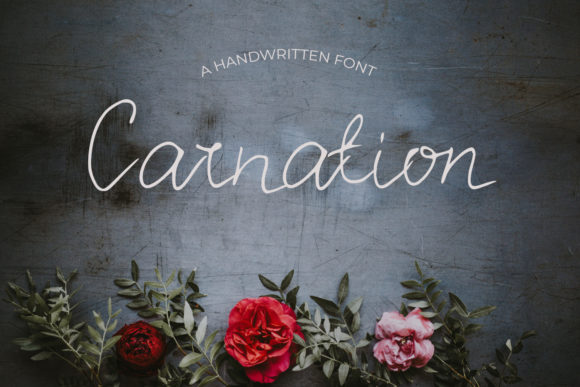
Carnation Font: A Delicate and Elegant Handwritten Font for Your Creative Projects
Are you a designer or crafter looking for a font that exudes elegance and sophistication? Look no further than the Carnation Font. This beautiful handwritten font is perfect for creating stunning designs that are sure to impress. In this article, we’ll take a closer look at the Carnation Font, its features, and how you can use it to elevate your creative projects.
What is Carnation Font?
Carnation Font is a delicate and elegant handwritten font that is sure to capture your heart. Its distinct and well-rounded letters make it a masterpiece, perfect for a wide range of design applications. Whether you’re creating a logo, branding materials, or social media graphics, Carnation Font is the perfect choice.
Features of Carnation Font
So, what makes Carnation Font so special? Here are just a few of its key features:
• Delicate and Elegant: Carnation Font is a beautifully crafted handwritten font that exudes elegance and sophistication.
• Distinct and Well-Rounded Letters: The font’s letters are distinct and well-rounded, making it easy to read and recognize.
• Incredibly Versatile: Carnation Font is incredibly versatile, making it perfect for a wide range of design applications.
How to Use Carnation Font
Now that you know more about Carnation Font, let’s take a look at how you can use it in your creative projects. Here are a few ideas to get you started:
• Logo Design: Use Carnation Font to create a beautiful and elegant logo for your business or brand.
• Branding Materials: Use the font to create stunning branding materials, such as business cards, brochures, and flyers.
• Social Media Graphics: Use Carnation Font to create eye-catching social media graphics, such as Facebook posts, Instagram stories, and Twitter headers.
• Wedding Invitations: Use the font to create beautiful and elegant wedding invitations and other stationery.
Why Choose Carnation Font?
So, why should you choose Carnation Font for your creative projects? Here are just a few reasons:
• Unique and Eye-Catching: Carnation Font is a unique and eye-catching font that is sure to stand out from the crowd.
• Elegant and Sophisticated: The font exudes elegance and sophistication, making it perfect for high-end designs.
• Versatile: Carnation Font is incredibly versatile, making it perfect for a wide range of design applications.
Tips for Using Carnation Font
Here are a few tips for using Carnation Font in your creative projects:
• Use it with a Simple Background: Carnation Font looks best with a simple background, so try to avoid using it with busy or patterned backgrounds.
• Experiment with Different Sizes: Experiment with different sizes to find the one that works best for your design.
• Pair it with Other Fonts: Try pairing Carnation Font with other fonts to create a unique and eye-catching design.
In conclusion, Carnation Font is a beautiful and elegant handwritten font that is perfect for designers and crafters. Its distinct and well-rounded letters make it a masterpiece, and its incredibly versatile style makes it perfect for a wide range of design applications. Whether you’re creating a logo, branding materials, or social media graphics, Carnation Font is the perfect choice. So why wait? Fall in love with Carnation Font and use it to create spectacular designs!